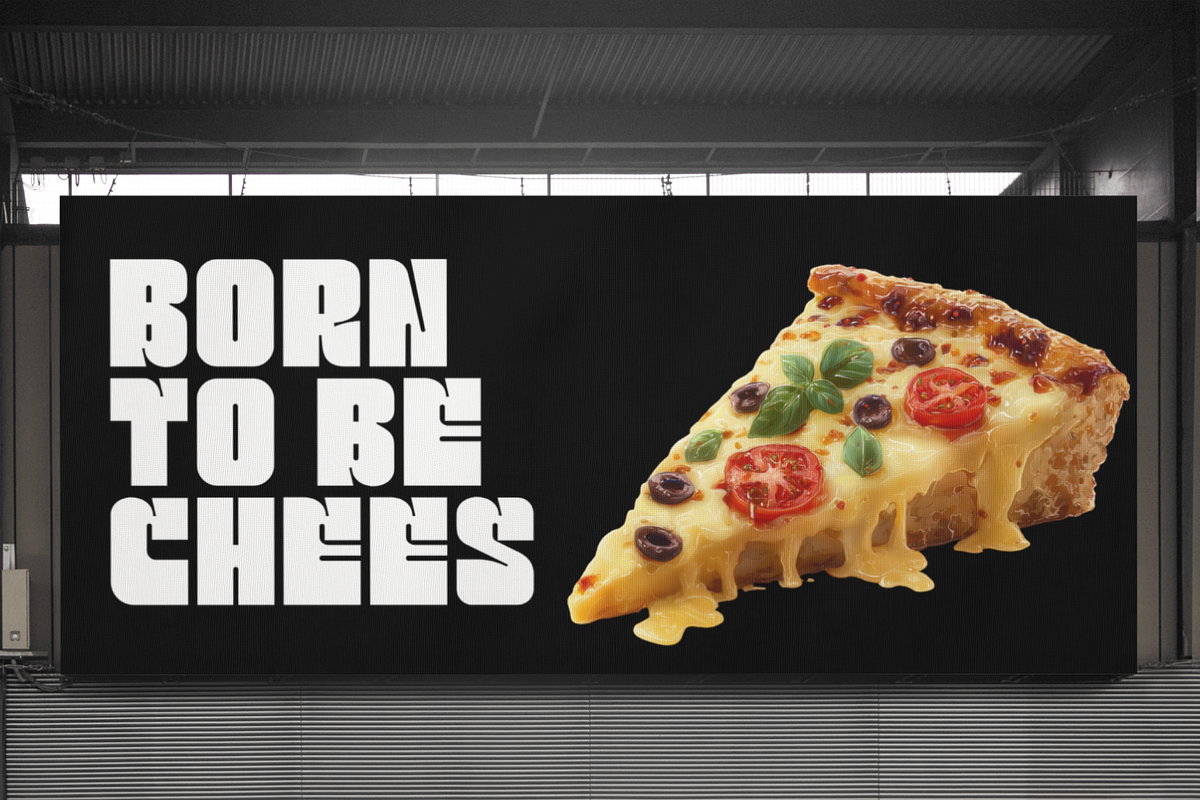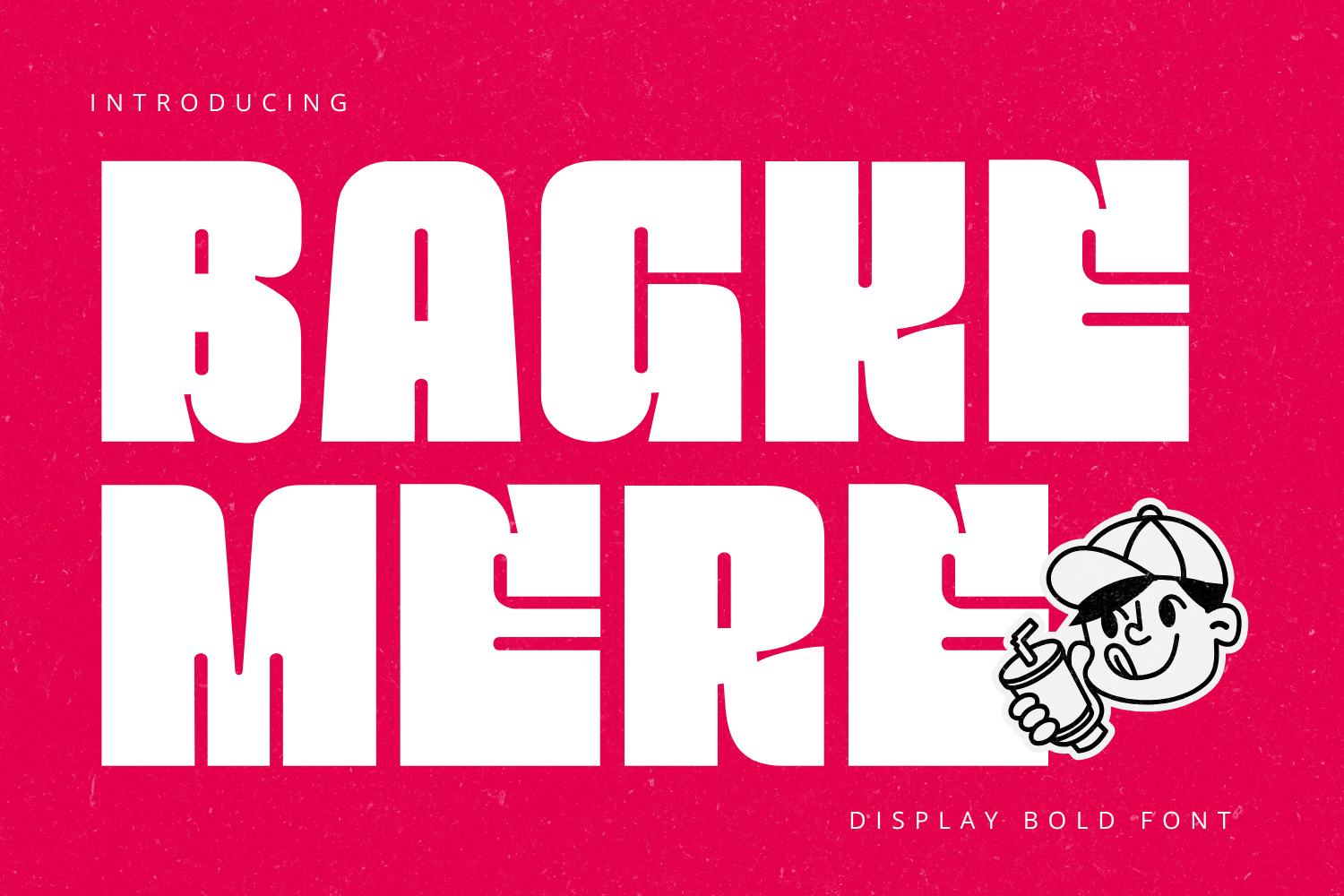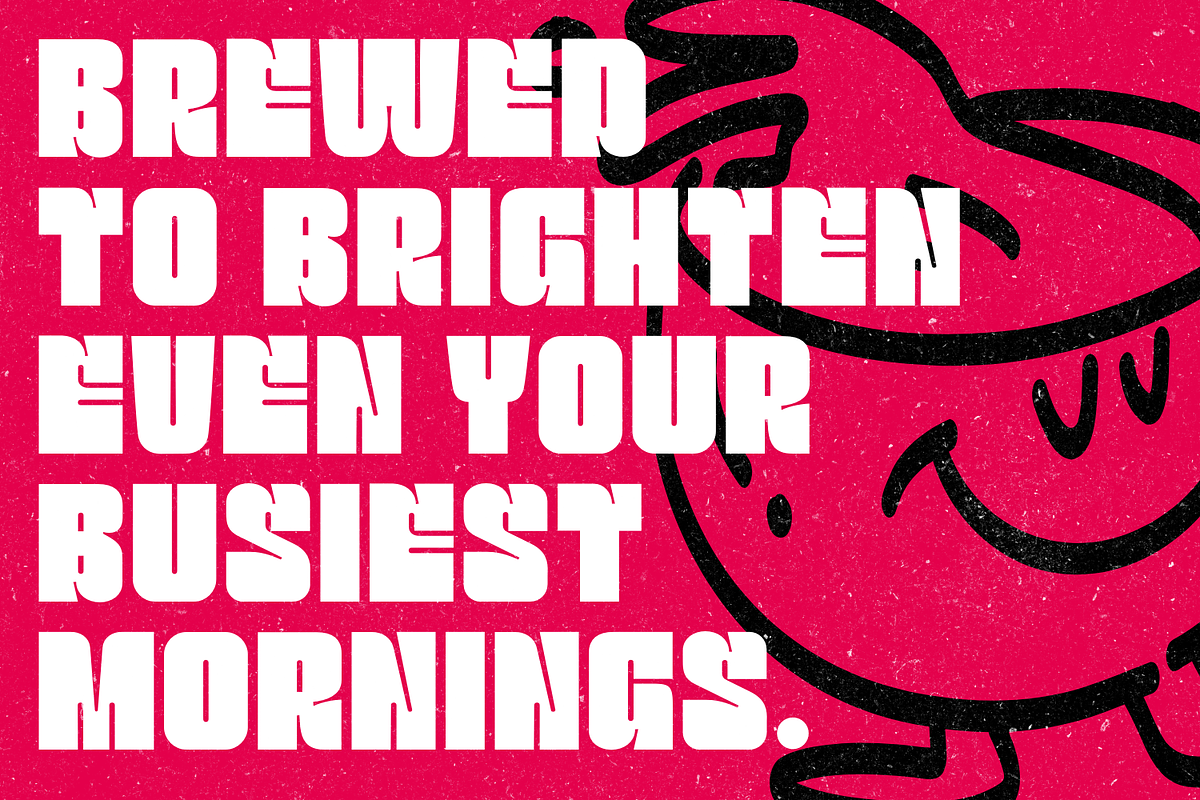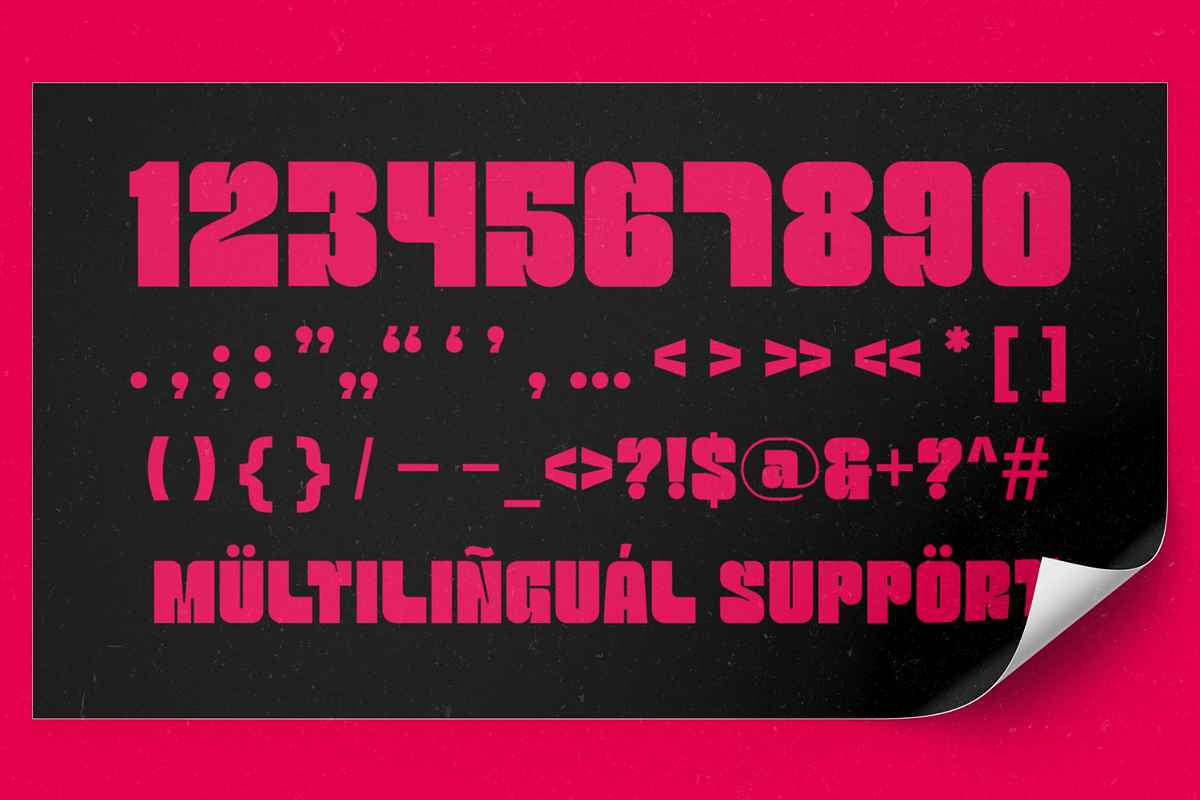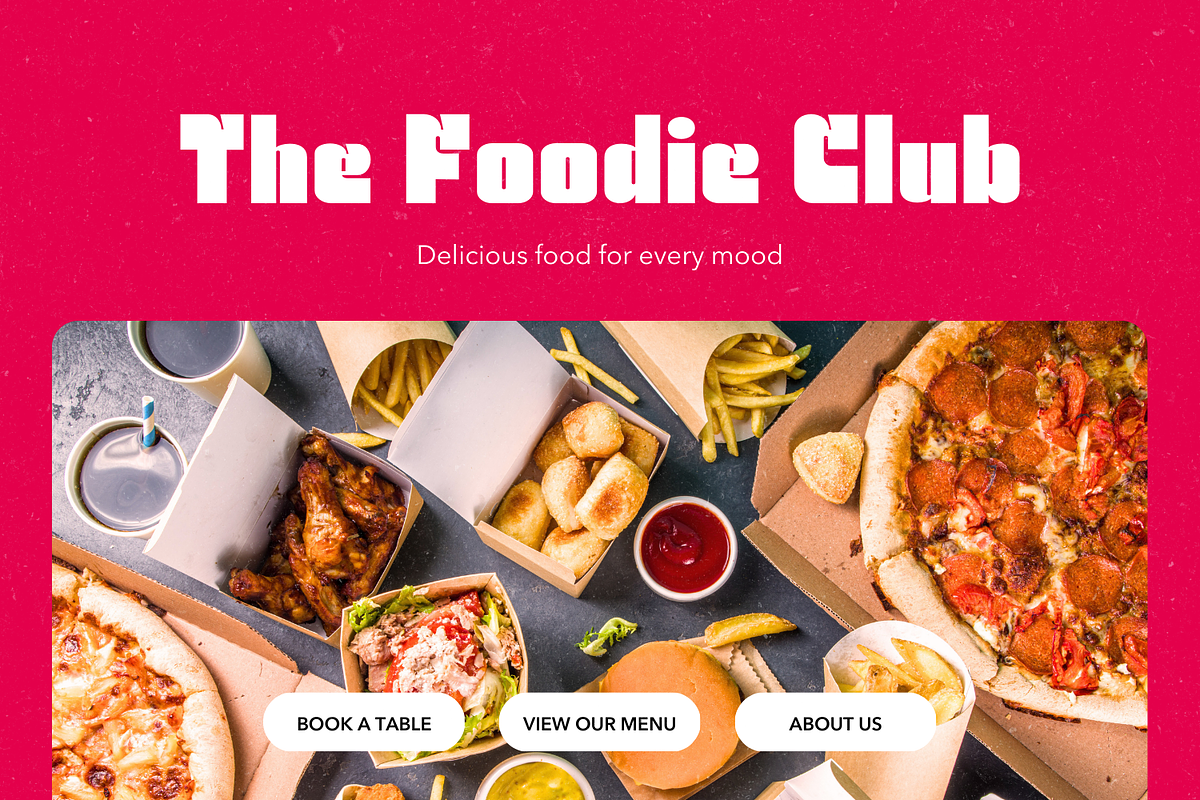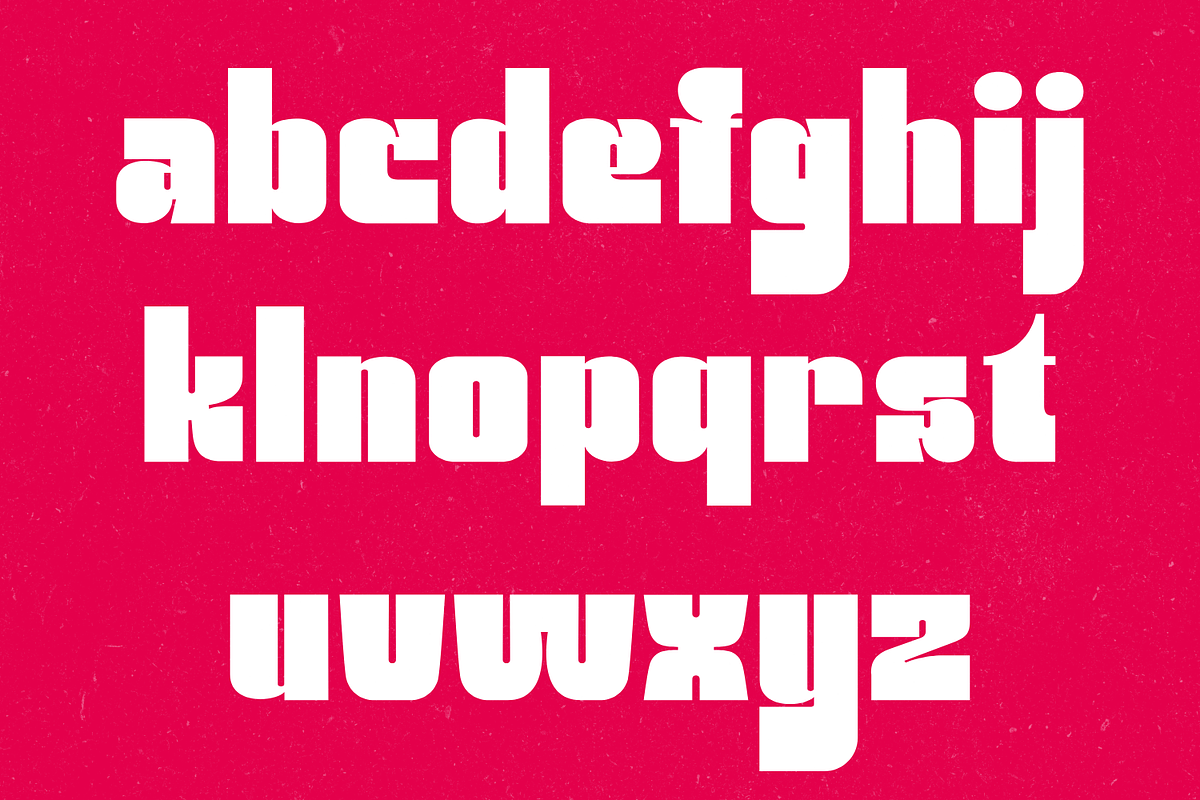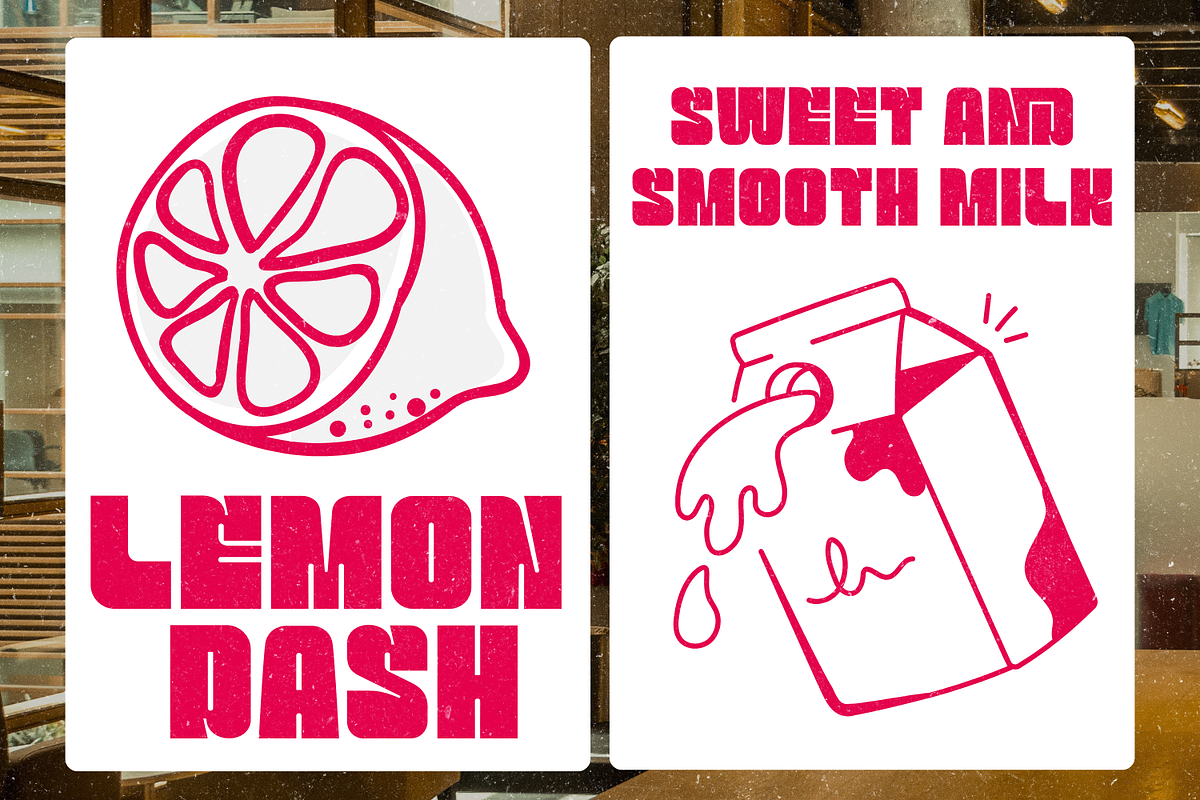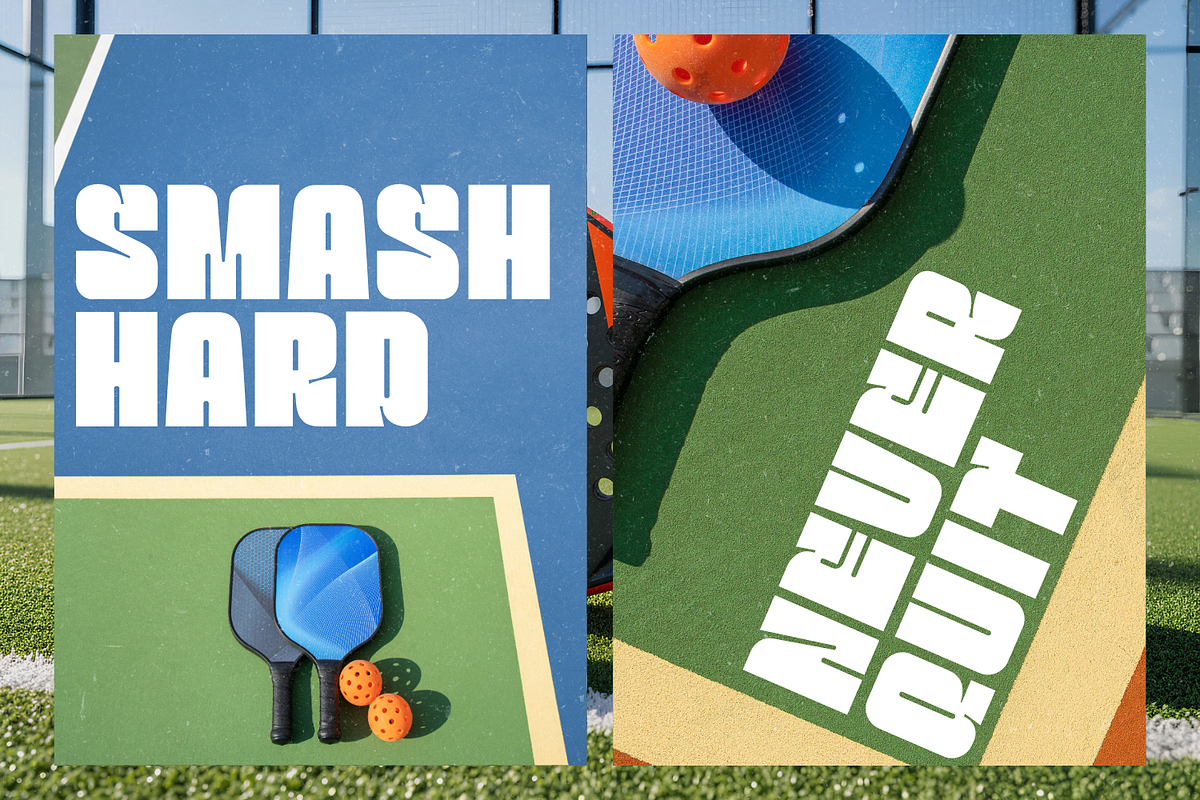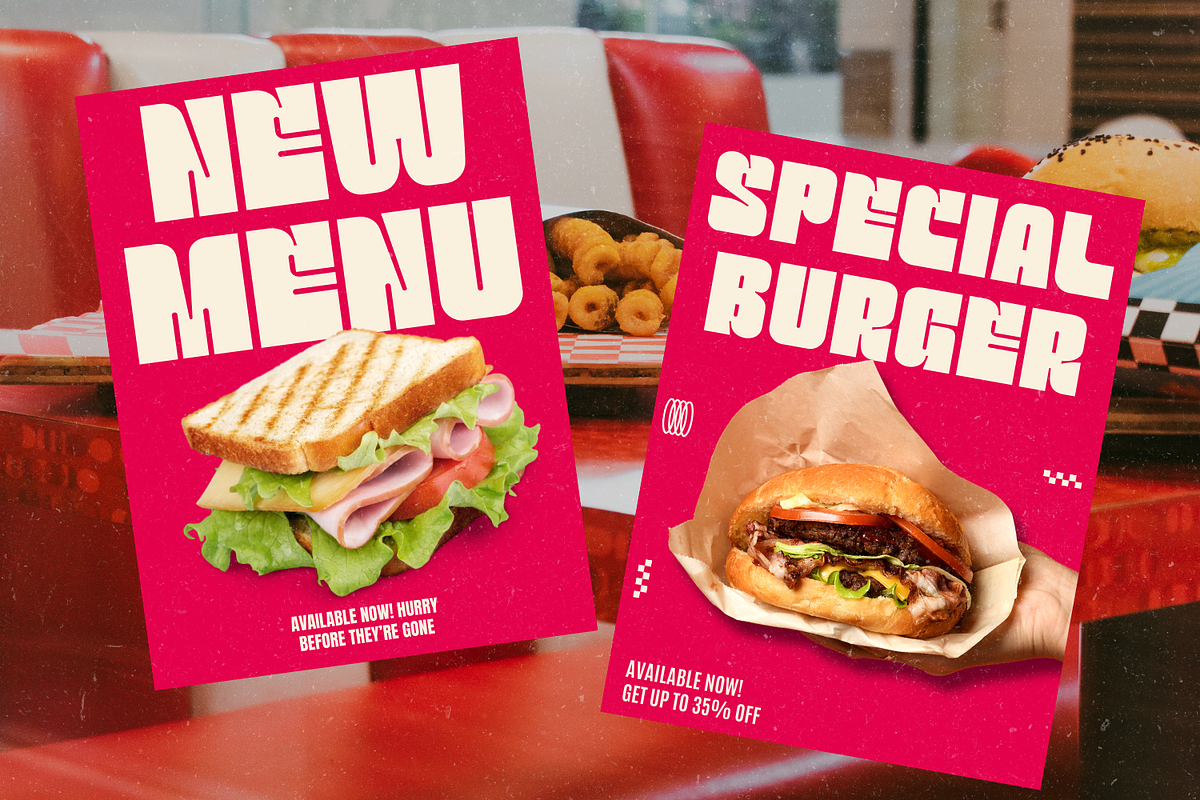
Bagke Mere - Bold Font
BAGKE MERE: The Unfiltered Voice of the Concrete Jungle
Imagine a city that never hits the “mute” button. Between the screech of skateboards on pavement and the neon glow of a late-night diner, there is a visual rhythm that defines the streets. That rhythm is BAGKE MERE.
This isn’t just a typeface; it’s an attitude carved into pixels. Why Choose BAGKE MERE?
High Impact: Maximum visibility for headlines and logos. Unique Geometry: A perfect blend of blocky industrialism and organic street style. Unapologetic Energy: It turns every sentence into a statement.